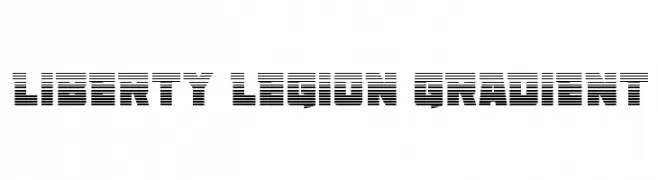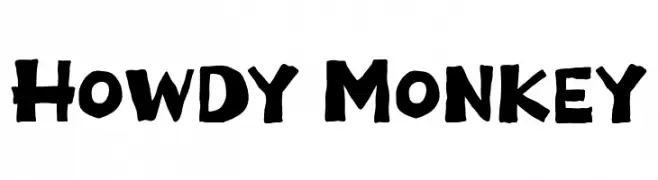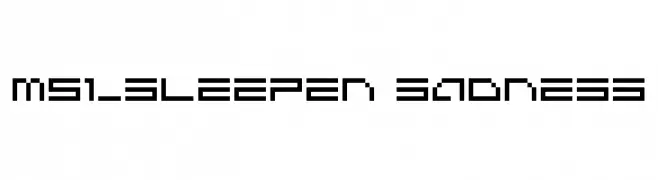
A bold, futuristic font with a gradient effect created by horizontal lines.
A bold, angular font with a tribal and geometric aesthetic.
A bold, geometric font with a futuristic and angular design.
Playful, bold, hand-drawn font.
A bold, 3D italic font with a futuristic and dynamic style.
A pixelated, grid-like font with a retro digital aesthetic.
A bold, angular font with a modern and dynamic style.
A modern, geometric font with clean lines and rounded edges, perfect for digital use.
A decorative font inspired by African art, featuring bold and intricate symbols.